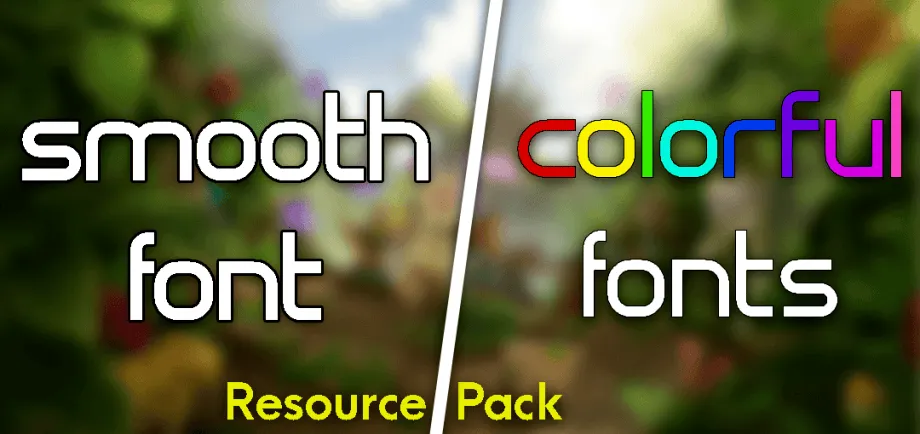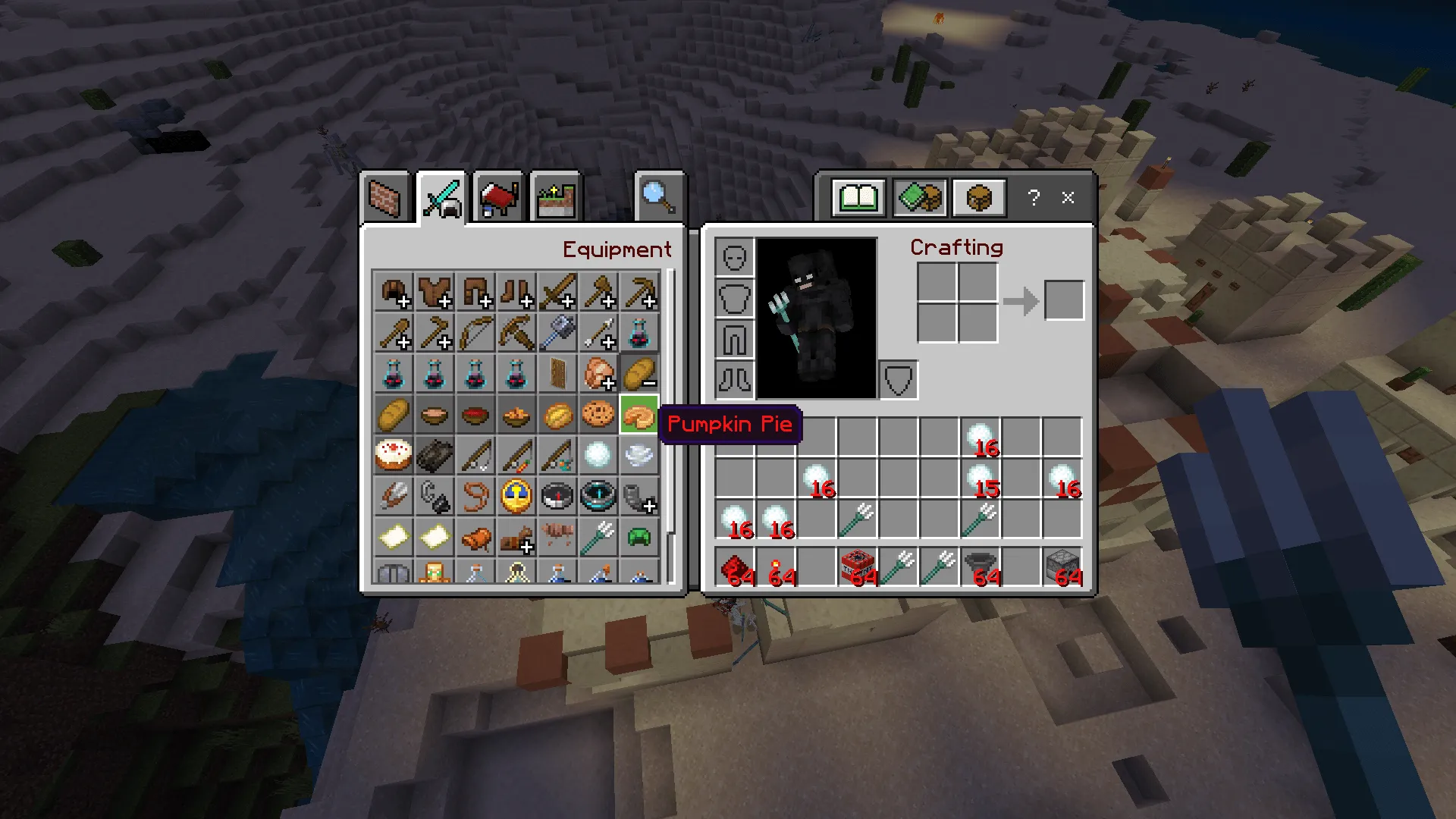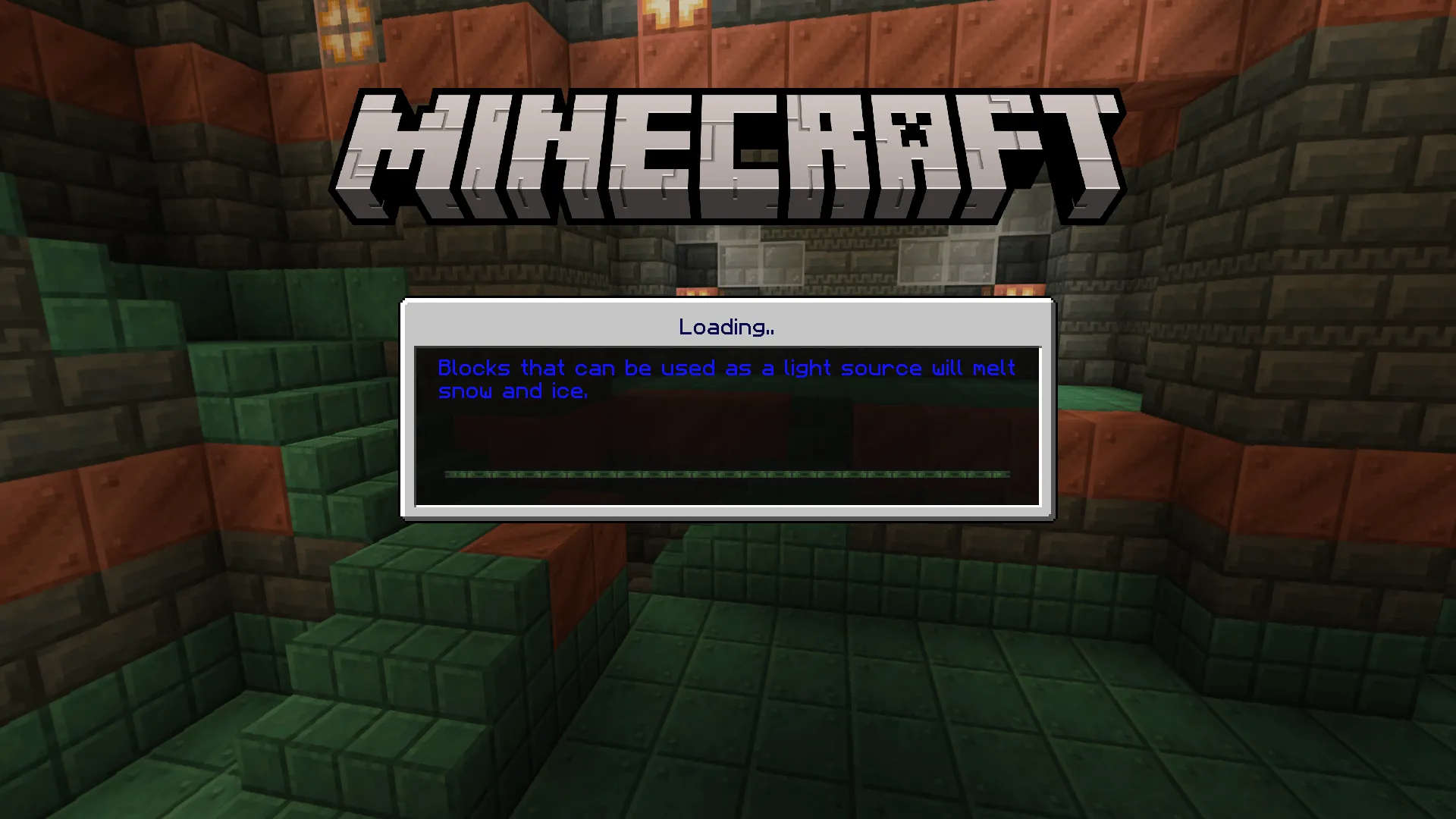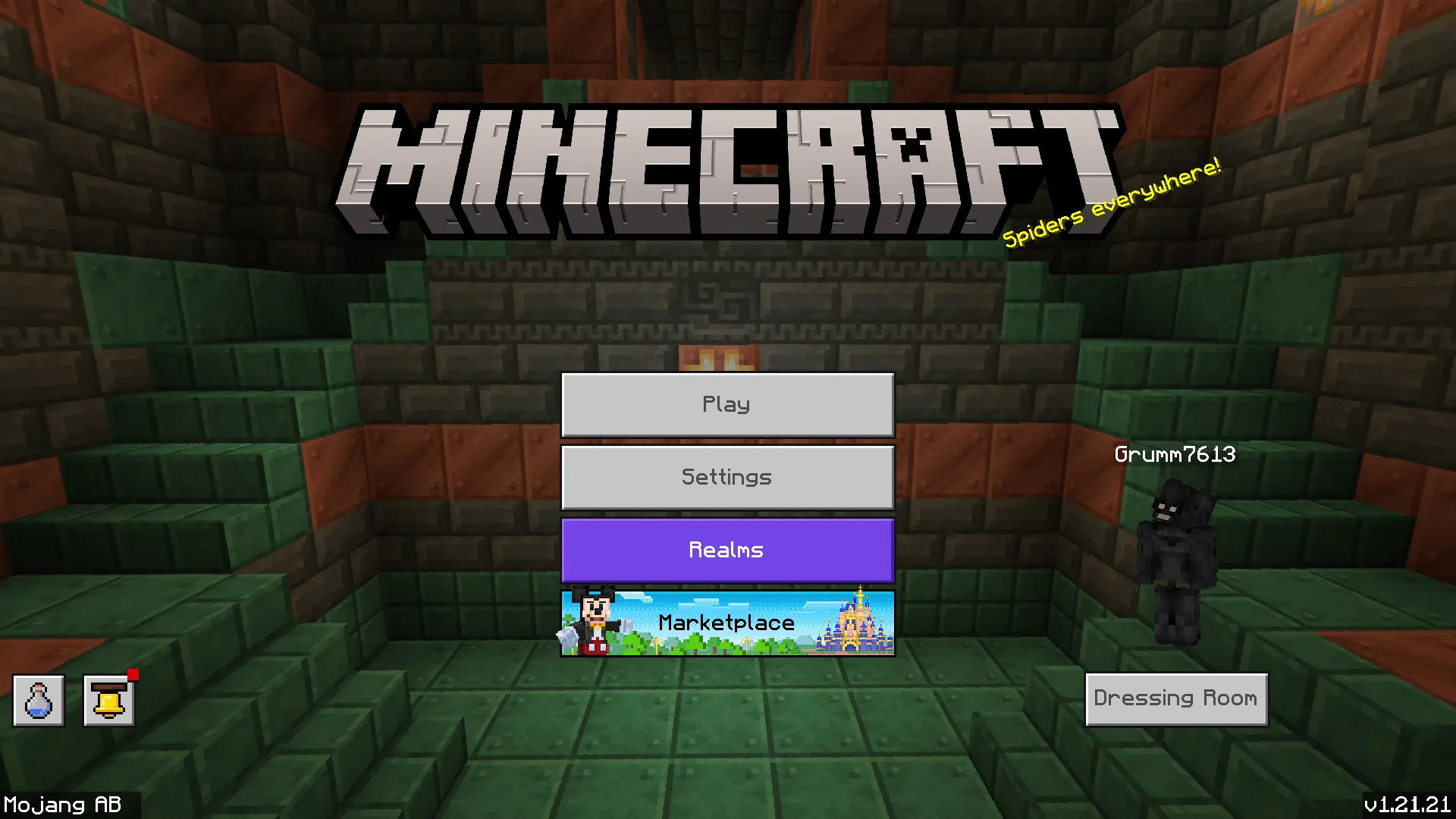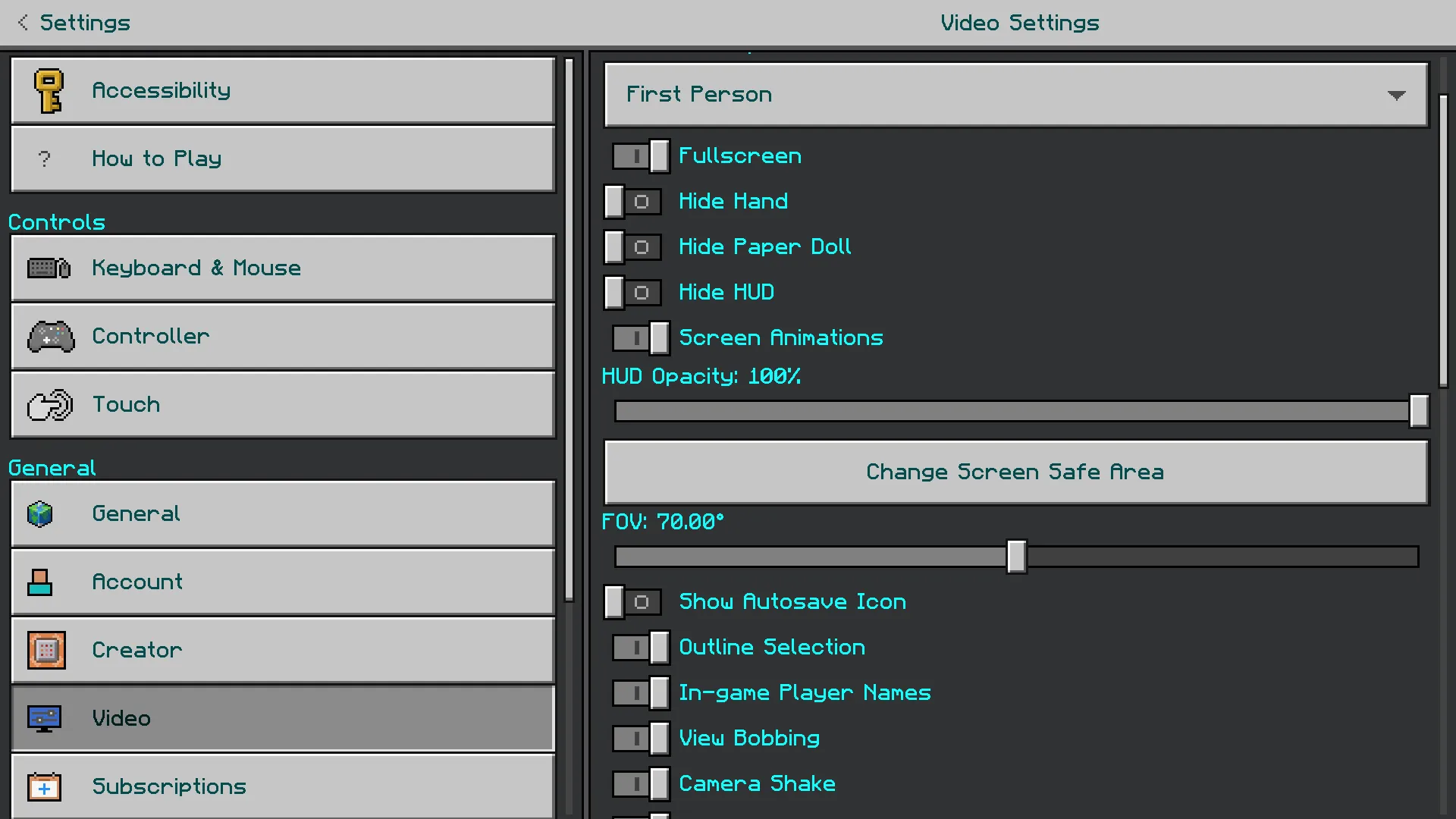
Smooth & Colorful Fonts 64x | Total 10 Colors!
The classic Minecraft font does fit with the UI and the concept of the game. But let's be honest... We wanna try new things—new fonts, new features and stuff in anything. And that's the purpose of addons. Similarly, this resource pack adds a custom smooth font that looks clear and smooth and fits the classic Minecraft UI. And not just that, it also offers colored fonts, which can be switched from the subpacks setting. Currently, it has 10 colored fonts.
Added a new separate resource pack containing only colorful fonts with the default Minecraft font. Note: The smooth and colorful font resource pack still works perfectly.